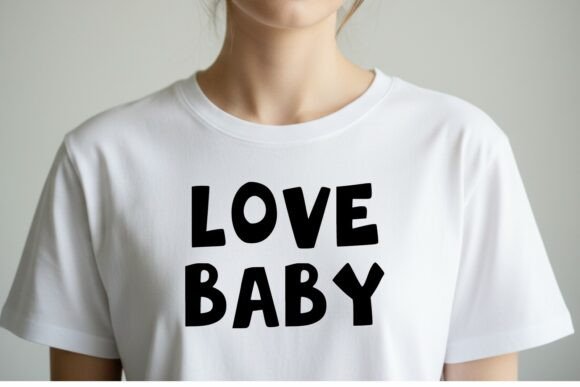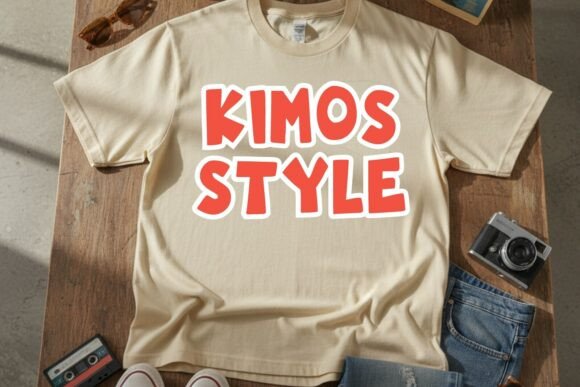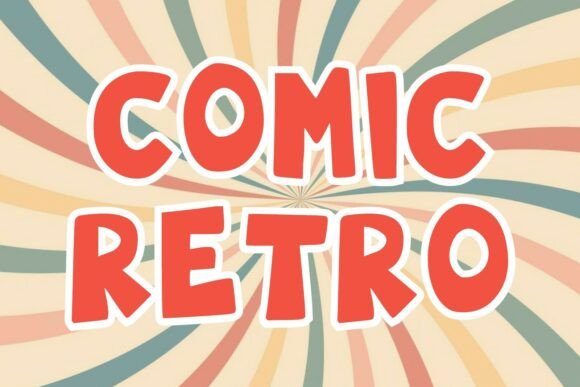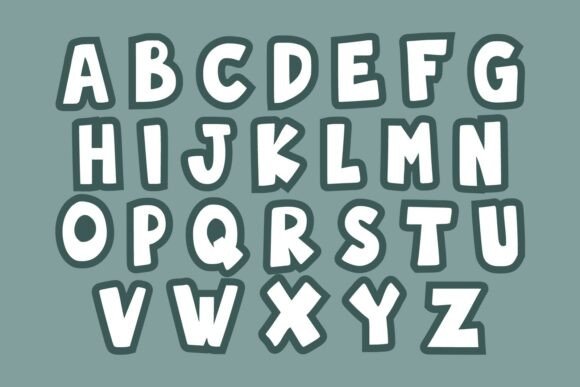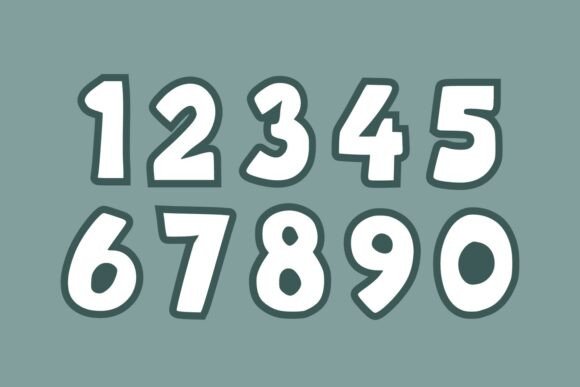
The Ultimate Heroes Super Font Guide: Unleashing Your Inner Superhero Designer
I’ll never forget the time I was working on a superhero-themed project for a client, and I just couldn’t find the right font to bring their character to life. The client wanted something bold, playful, and energetic, but everything I tried seemed to fall flat. That’s when I stumbled upon the Heroes Super Comic Font, and it was like a superhero cape swooped in to save the day! ✨ In this article, I’ll share my love for this amazing font, its features, and how to make the most of it in your designs.
Here’s what I’m obsessed with about the Heroes Super Font:
- ✨ Bold and playful: This font is perfect for making a statement with your designs.
- ✅ Easy to read: Even at smaller sizes, the Heroes Super Font remains clear and legible.
- 🎉 Versatile: From comic titles to posters, logos, and social media graphics, this font can handle it all.
- 👍 Kid-friendly: The rounded edges and energetic vibe make it ideal for projects targeting a younger audience.
Now, I’m not going to sugarcoat it – there are a few quirks to be aware of:
- 🤔 Limited use in body text: Due to its bold nature, the Heroes Super Font is best used for headlines and titles.
- ⚠️ Some glyphs may require manual adjustment: For certain special characters, you might need to tweak the spacing or size for optimal results.
The Story Behind Heroes Super Font
The Heroes Super Font was designed with the goal of capturing the essence of classic comic book lettering. Its creator, a passionate typographer and comic book fan, wanted to bring a sense of excitement and adventure to designs. With its bold strokes, rounded edges, and dynamic personality, this font is sure to become a staple in any designer’s toolkit.
| What type of projects is the Heroes Super Font best suited for? | The Heroes Super Font is perfect for superhero-themed designs, comic titles, posters, logos, kids’ projects, merchandise, and eye-catching social media graphics. |
| Is the Heroes Super Font available in different weights or styles? | Currently, the Heroes Super Font comes in a single bold weight, but its versatility and range of glyphs make it adaptable to various design needs. |
With its bold personality and versatility, the Heroes Super Font is sure to become your go-to choice for superhero-themed designs and beyond. So go ahead, unleash your inner superhero designer, and create something amazing! 💥